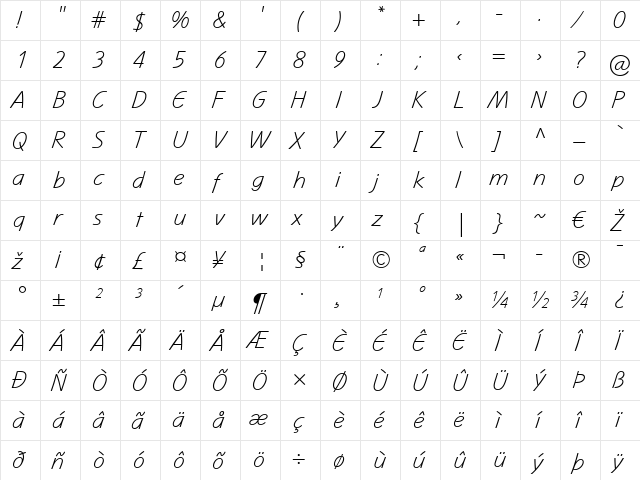
Mano LT Light Regular
| Designer | Marco Ganz |
Design Context for Mano LT Light Typeface
Mano LT Light is a composed and adaptable typeface that performs quietly and consistently across a wide range of design contexts. The delicate stroke weight brings airiness and refinement to layouts.